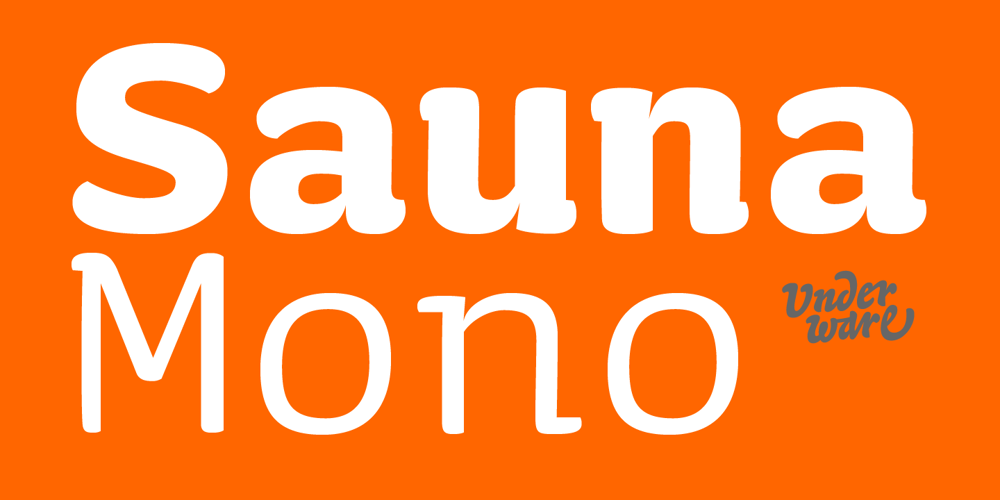
Sauna Mono Pro Font Family was designed by Bas Jacobs, Akiem Helmling, Sami Kortemäki and published by Underware. Sauna Mono Pro contains 4 styles and family package options. Sauna Mono Pro is a monospaced typeface with an unusual amount of personality. Monospaced fonts are supposed to be bland, universal, clean and smooth, right? Well, Sauna Mono is everything except that. It has the same touch of curves and warmness as the other existing fonts. Sauna Mono comes in 4 styles: Regular, Italic, Bold and Bold Italic. Sauna Mono belongs to the Sauna Pro family, a set of text and display fonts accompanied by multi-coloured dingbat fonts. Sauna Mono brings the total amount of fonts of the complete Sauna family to 15 styles all together. Comes with Underware’s Latin Plus character set with a support for 219 languages.